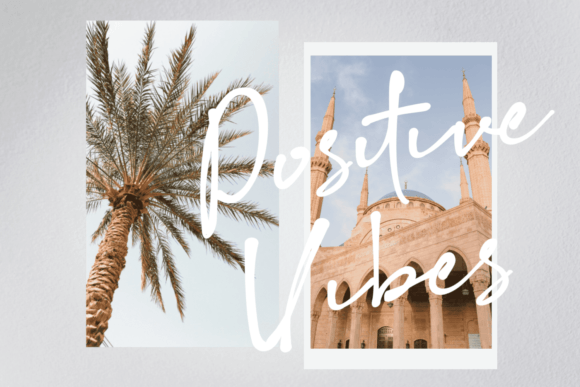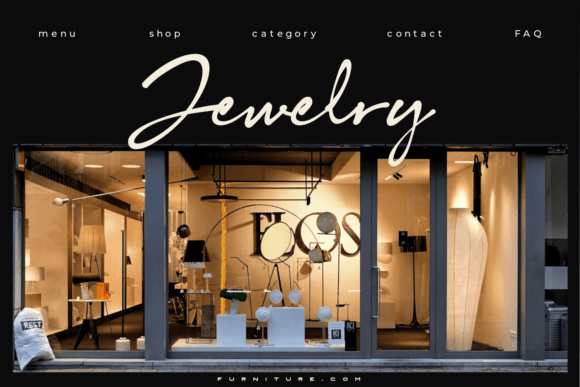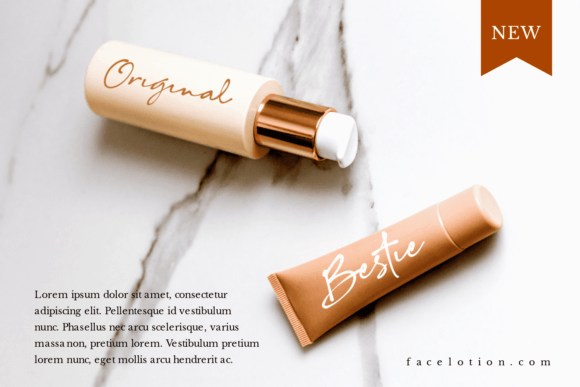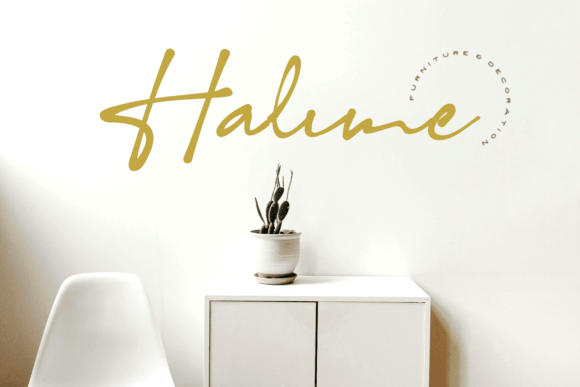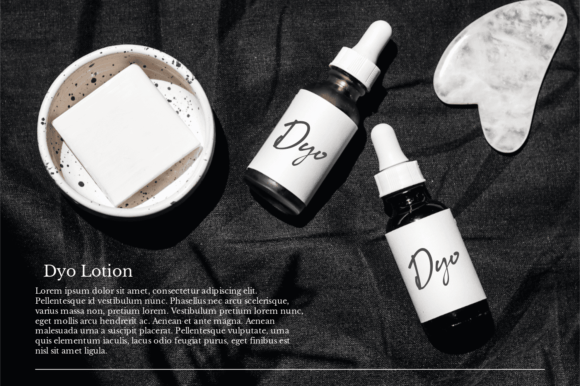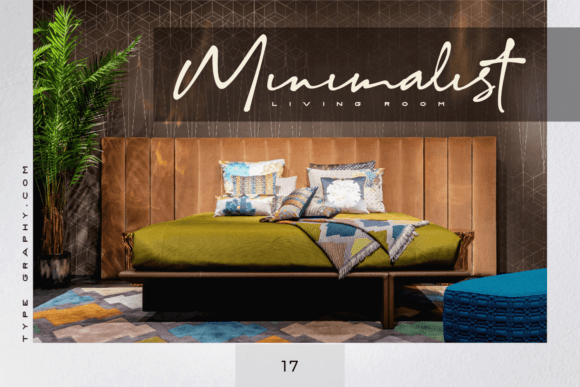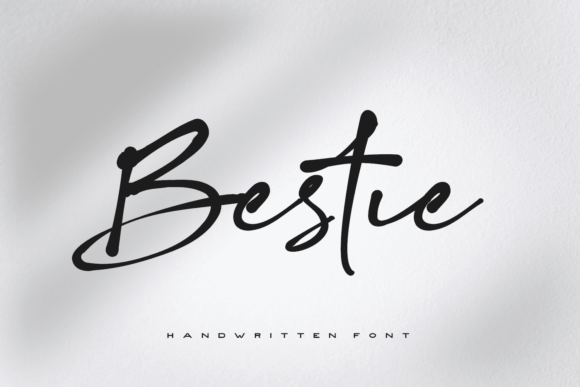
Introducing Bestie Font: The Perfect Handwritten Brush Script for Your Creative Projects
Are you a designer, crafter, or DIY enthusiast looking for a unique and expressive font to elevate your creative projects? Look no further than Bestie Font, a beautiful handwritten brush script font that mimics the look and feel of writing on a marker board. In this article, we’ll dive into the features and benefits of Bestie Font, and explore how it can help you create stunning greeting cards, invitations, motivational quotes, and more.
What is Bestie Font?
Bestie Font is a carefully crafted handwritten brush script font that exudes a sense of warmth, friendliness, and approachability. Its unique charm lies in its imperfect, hand-written feel, which makes it perfect for creating personal and engaging content. Whether you’re designing a greeting card, invitation, or social media post, Bestie Font is sure to add a touch of personality and whimsy to your project.
Key Features of Bestie Font
• Handwritten brush script style: Bestie Font boasts a beautiful, flowing script style that looks like it was written on a marker board.
• Unique and expressive: With its imperfect, hand-written feel, Bestie Font adds a touch of personality and whimsy to any project.
• Perfect for greeting cards and invitations: Bestie Font is ideal for creating personal and engaging greeting cards, invitations, and other paper crafts.
• Suitable for motivational quotes and social media posts: The font’s friendly and approachable style makes it perfect for creating inspiring motivational quotes and social media posts.
Benefits of Using Bestie Font
So why choose Bestie Font for your creative projects? Here are just a few benefits of using this amazing font:
• Adds a personal touch: Bestie Font’s handwritten style adds a personal and human touch to your designs, making them more relatable and engaging.
• Versatile and flexible: Bestie Font can be used for a wide range of creative projects, from greeting cards and invitations to social media posts and blog headers.
• Easy to read and understand: Despite its handwritten style, Bestie Font is surprisingly easy to read and understand, making it perfect for creating content that needs to be quickly digested.
How to Use Bestie Font in Your Creative Projects
Using Bestie Font in your creative projects is easy! Here are a few ideas to get you started:
• Greeting cards and invitations: Use Bestie Font to create personalized and engaging greeting cards and invitations for special occasions.
• Motivational quotes and social media posts: Create inspiring motivational quotes and social media posts using Bestie Font’s friendly and approachable style.
• Blog headers and titles: Add a touch of personality to your blog headers and titles with Bestie Font’s unique and expressive style.
Tips and Tricks for Getting the Most Out of Bestie Font
Here are a few tips and tricks for getting the most out of Bestie Font:
• Experiment with different colors and textures: Bestie Font looks great in a variety of colors and textures, so don’t be afraid to experiment and find the perfect combination for your project.
• Use it with other fonts and graphics: Bestie Font pairs well with other fonts and graphics, so feel free to get creative and combine it with other elements to create a unique look.
• Pay attention to font size and spacing: As with any font, pay attention to font size and spacing to ensure that your text is easy to read and understand.
In conclusion, Bestie Font is a beautiful and expressive handwritten brush script font that’s perfect for designers, crafters, and DIY enthusiasts. With its unique charm, versatility, and ease of use, Bestie Font is sure to become a go-to font in your creative toolkit. So why wait? Download Bestie Font today and start creating stunning greeting cards, invitations, motivational quotes, and more!